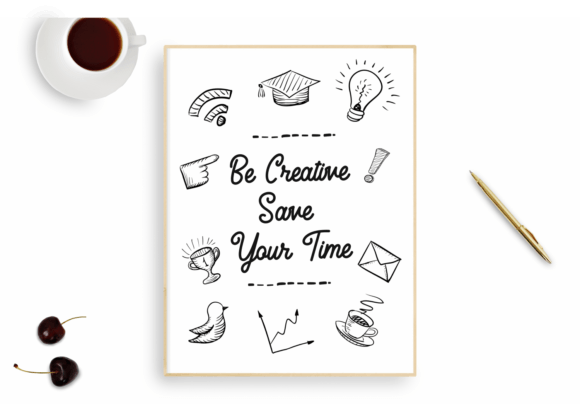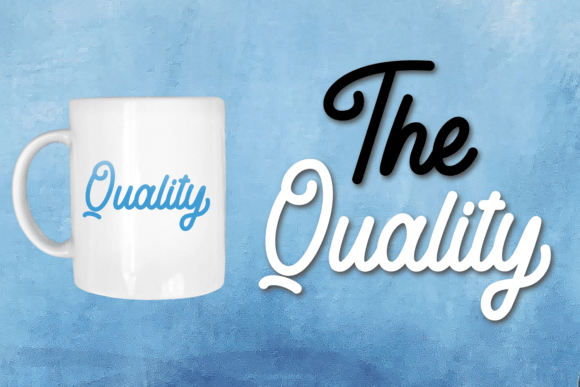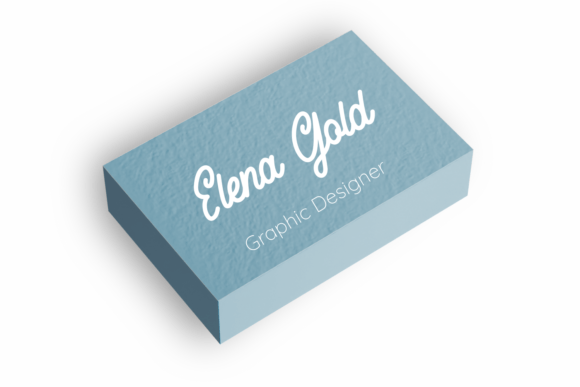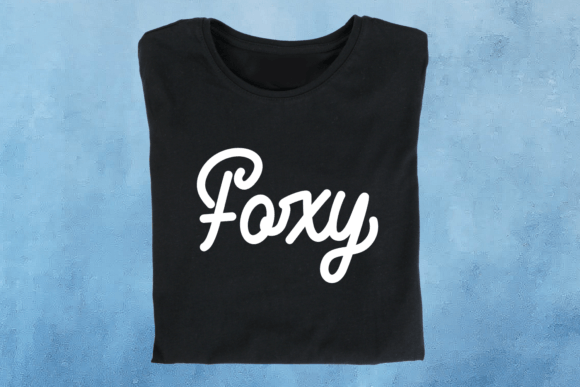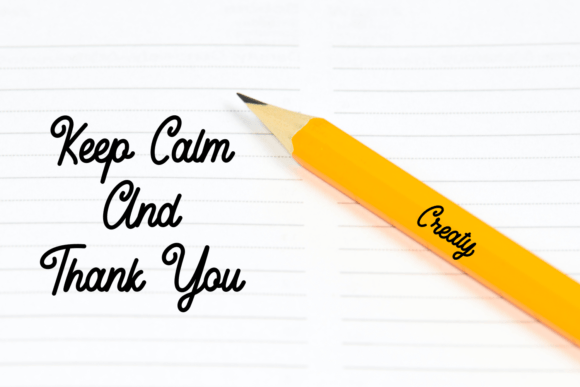
Creaty Font: The Fun and Friendly Handwritten Script Font
Are you tired of using the same old fonts in your designs? Look no further than Creaty Font, a fun and friendly handwritten script font that’s perfect for adding a personal touch to your creations. In this article, we’ll take a closer look at Creaty Font and explore its features, benefits, and uses.
What is Creaty Font?
Creaty Font is a beautiful, handwritten script font that’s designed to bring a sense of fun and friendliness to your designs. Its unique and playful style makes it perfect for a wide range of projects, from creative crafts to digital designs. Whether you’re a designer, crafter, or DIY enthusiast, Creaty Font is a wonderful asset to have in your font library.
Features of Creaty Font
Creaty Font has several features that make it stand out from other fonts. Some of its key features include:
- Handwritten style: Creaty Font has a beautiful, handwritten style that’s perfect for adding a personal touch to your designs.
- Fun and friendly: The font has a fun and friendly vibe that’s perfect for designs that need to appeal to a wide audience.
- Versatile: Creaty Font is versatile and can be used for a wide range of projects, from creative crafts to digital designs.
- Easy to read: Despite its playful style, Creaty Font is easy to read and can be used for both headings and body text.
Benefits of Using Creaty Font
There are many benefits to using Creaty Font in your designs. Some of the key benefits include:
- Unique style: Creaty Font has a unique style that will help your designs stand out from the crowd.
- Emotional connection: The font’s friendly and approachable style can help create an emotional connection with your audience.
- Flexibility: Creaty Font can be used for a wide range of projects, from creative crafts to digital designs.
Uses of Creaty Font
Creaty Font can be used for a wide range of projects, including:
- Creative crafts: Creaty Font is perfect for creative crafts, such as scrapbooking, card making, and journaling.
- Digital designs: The font can be used for digital designs, such as social media graphics, blog posts, and website headers.
- Sign making: Creaty Font is great for sign making, whether you’re creating a sign for a business or a personal project.
- Paper crafting: The font is perfect for paper crafting, including paper cards, invitations, and gift tags.
Tips for Using Creaty Font
Here are some tips for using Creaty Font in your designs:
- Use it for headings: Creaty Font is perfect for headings and titles, as it adds a touch of personality to your designs.
- Mix it with other fonts: The font can be paired with other fonts to create a unique and interesting design.
- Experiment with colors: Creaty Font looks great in a variety of colors, so don’t be afraid to experiment and find the perfect color for your design.
- Use it for personal projects: Creaty Font is perfect for personal projects, such as creating gifts or decorations for your home.
Creaty Font is a fun and friendly handwritten script font that’s perfect for adding a personal touch to your designs. Its unique style, versatility, and ease of use make it a wonderful asset to have in your font library. Whether you’re a designer, crafter, or DIY enthusiast, Creaty Font is sure to become one of your go-to fonts. So why not give it a try and see how it can enhance your creations?